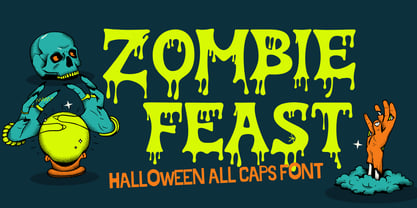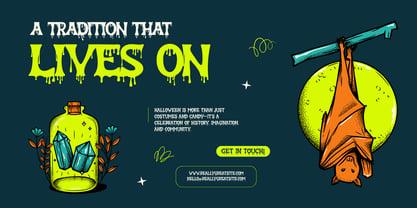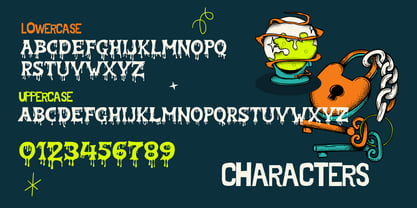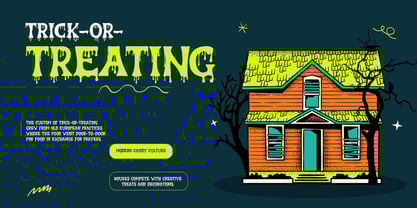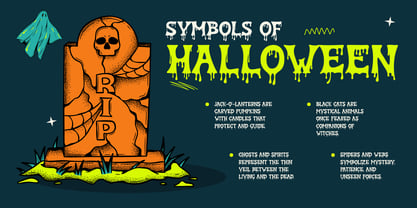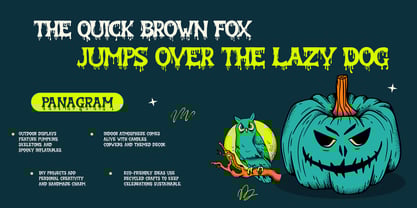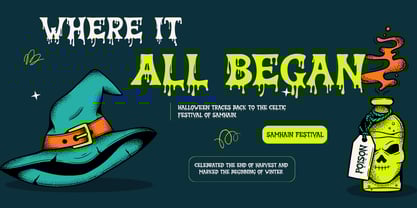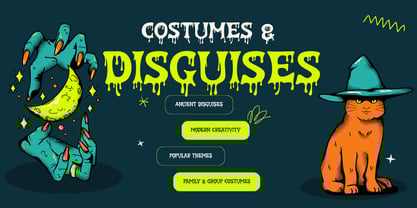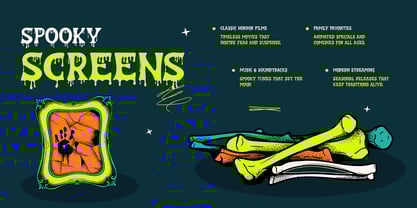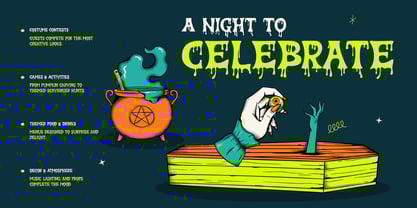
Zombie Feast
The Zombie Feast Font Family was designed by Dian Haniffan Hadi and published by Beary. Zombie Feast contains 1 styles. More about this family
Zombie Feast is an ALL CAPS horror font with a bold dripping blood effect that instantly grabs attention. Perfect for zombie themes, Halloween designs, horror movies, survival games, spooky party posters, thriller covers, creepy YouTube thumbnails, merchandise, and eerie logos. With thick, sharp, and melting letterforms, this font delivers an intense dark, gothic, and terrifying vibe—just like a classic zombie outbreak scene.